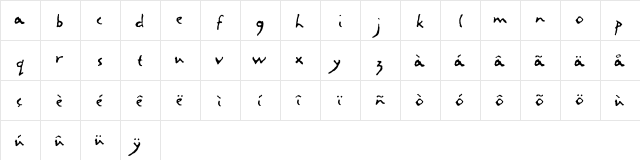
LettresEclatees LightAlt
Design Context for LettresEclatees Typeface
LettresEclatees is a composed and adaptable typeface that performs quietly and consistently across a wide range of design contexts. The delicate stroke weight brings airiness and refinement to layouts.